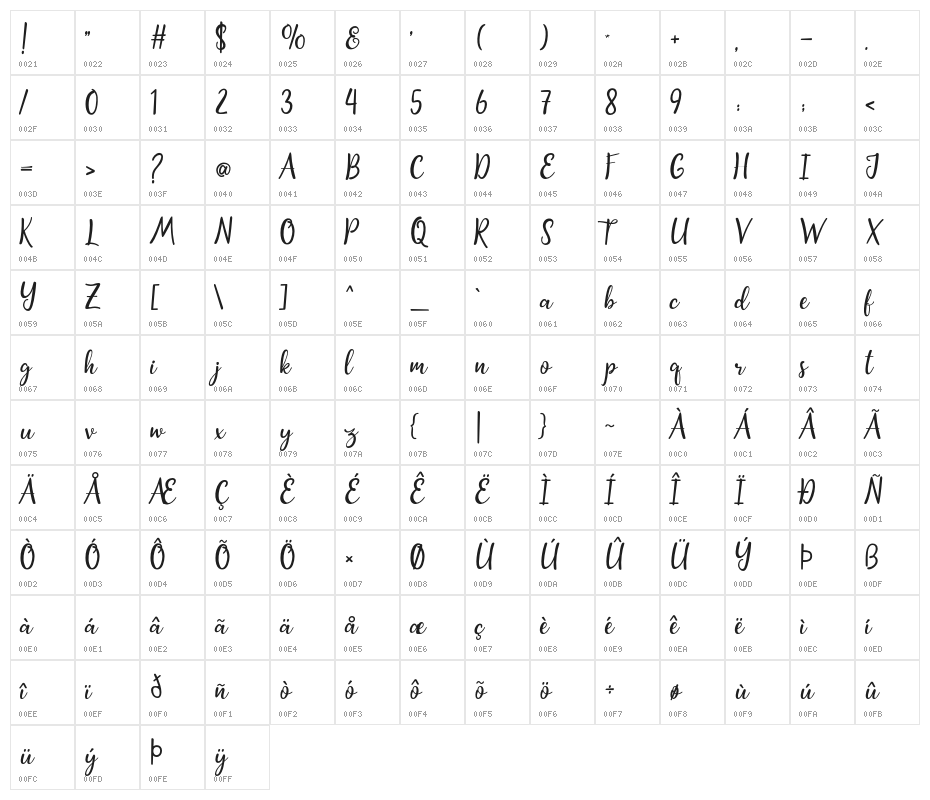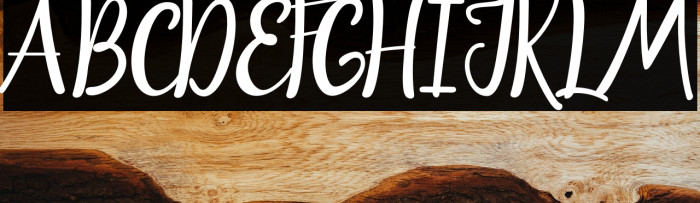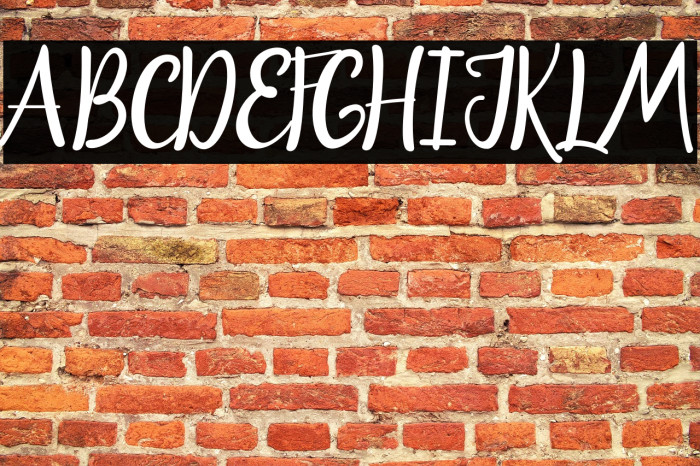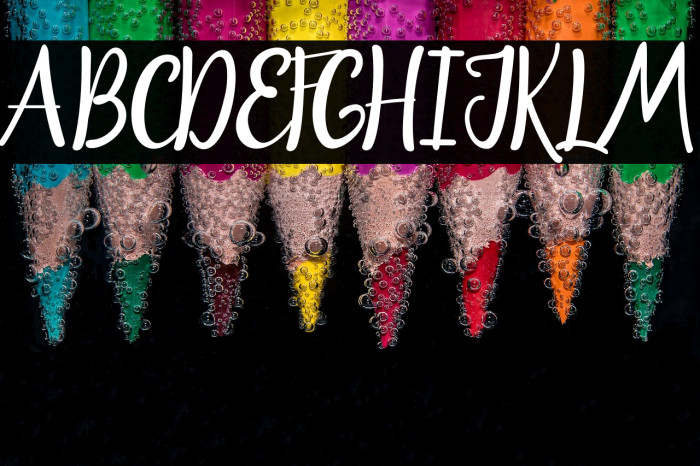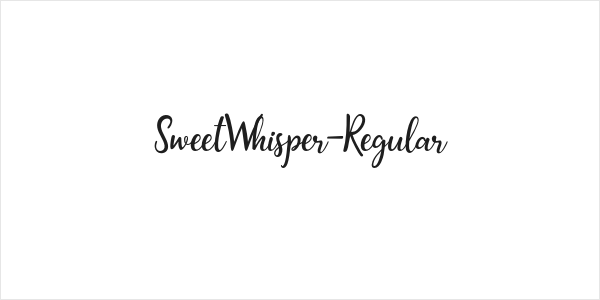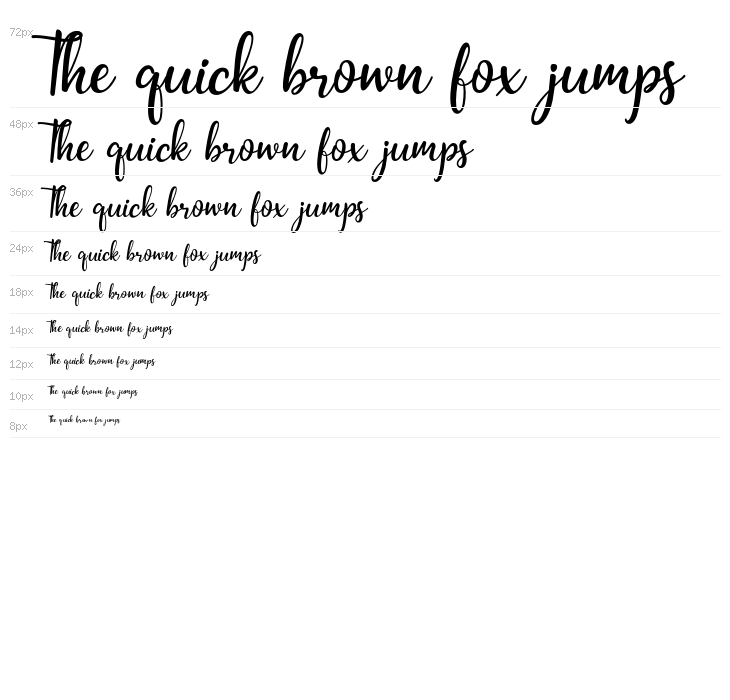
SweetWhisper-Regular Font
SweetWhisper-Regular Description
This font exudes a playful and elegant charm, characterized by its flowing script style. The uppercase letters are tall and slightly slanted, giving a sense of movement and grace. The lowercase letters are more rounded and connected, enhancing the cursive feel. The numerals maintain the same playful style, with a consistent stroke width that adds to the font's readability. Special characters are designed with the same attention to detail, ensuring they blend seamlessly with the rest of the typeface. Overall, this font is perfect for projects that require a touch of sophistication and whimsy.
| Use Case | Logos, Invitations, Decorative text |
| Proposed Projects | Ideal for wedding invitations, greeting cards, branding, and social media graphics. |